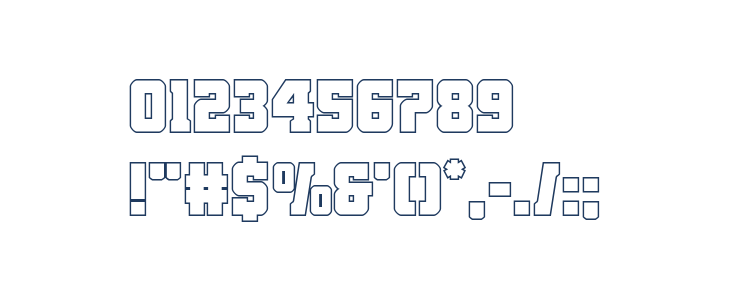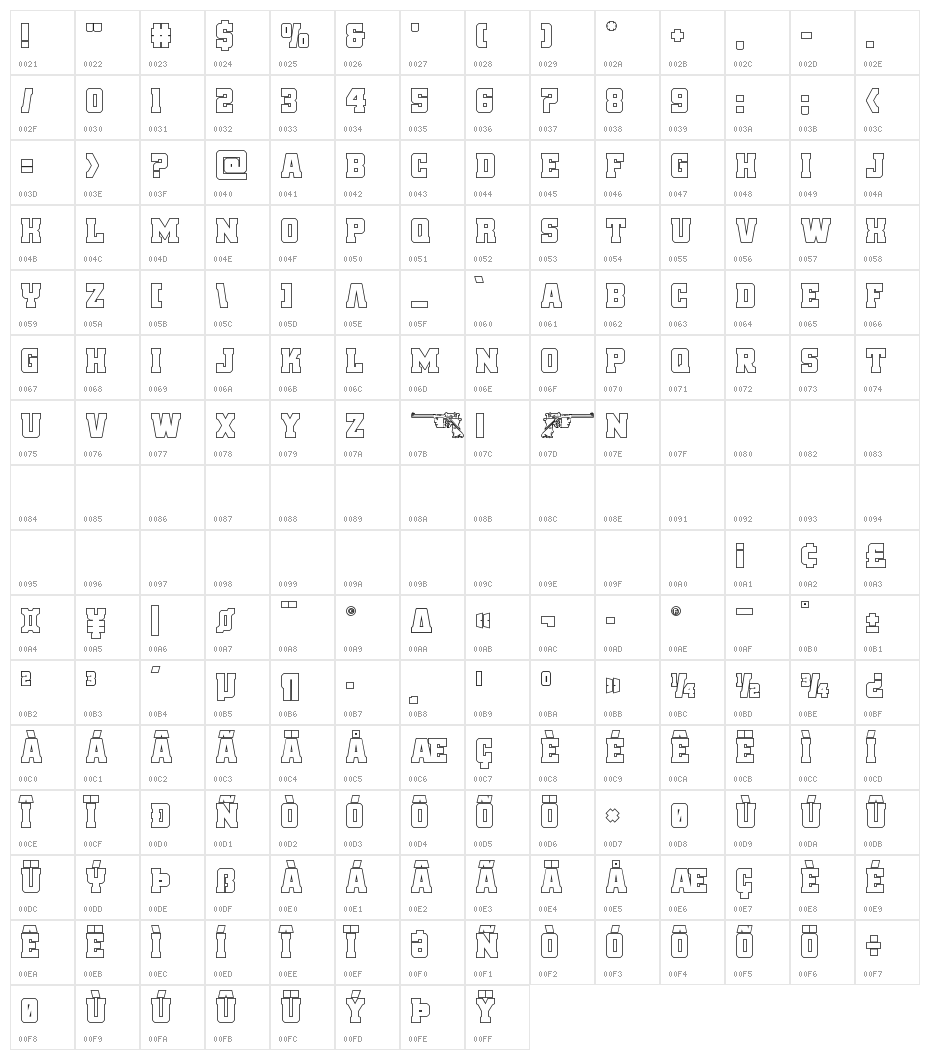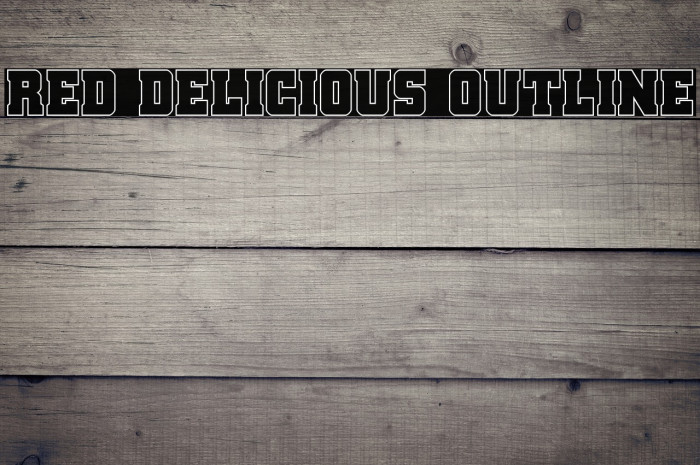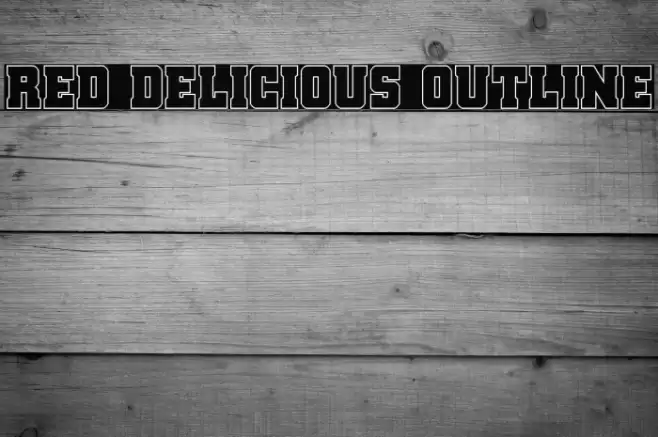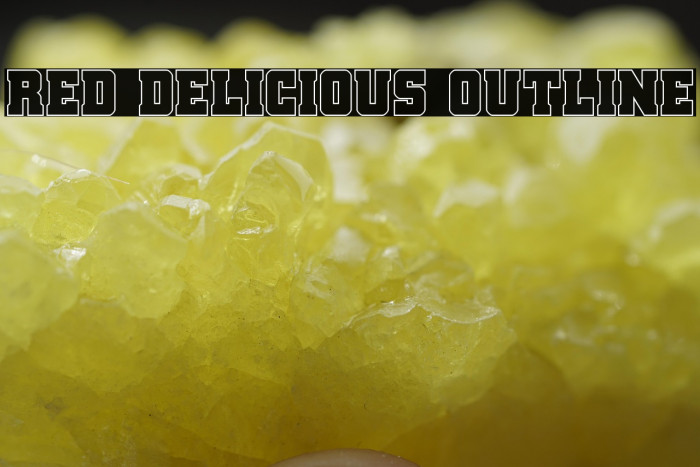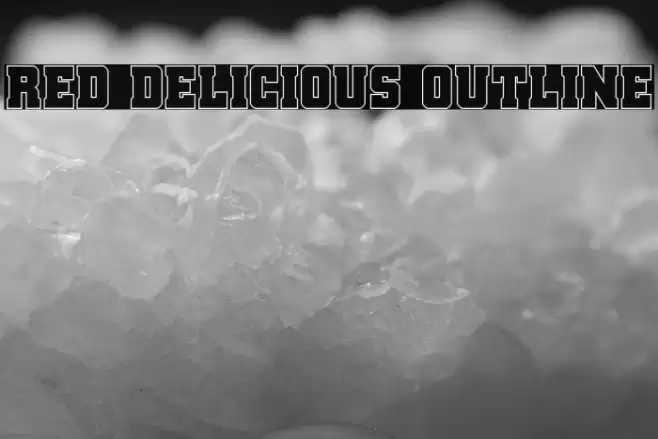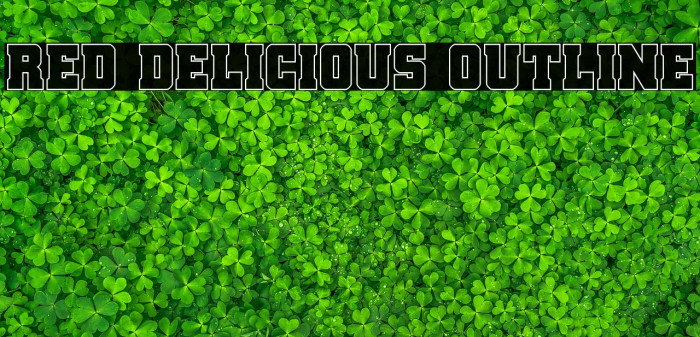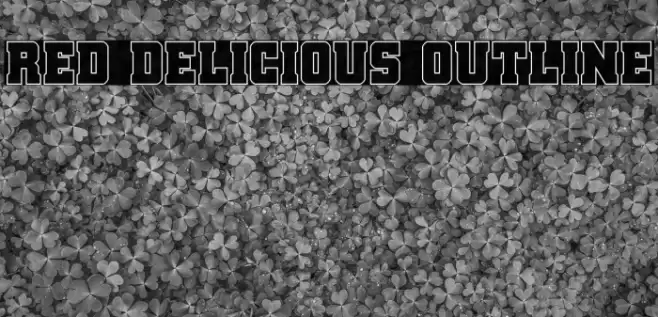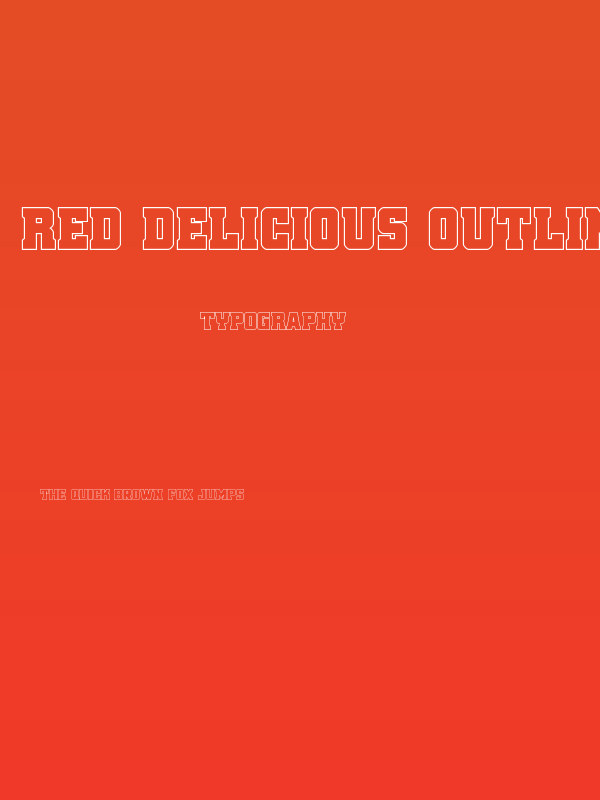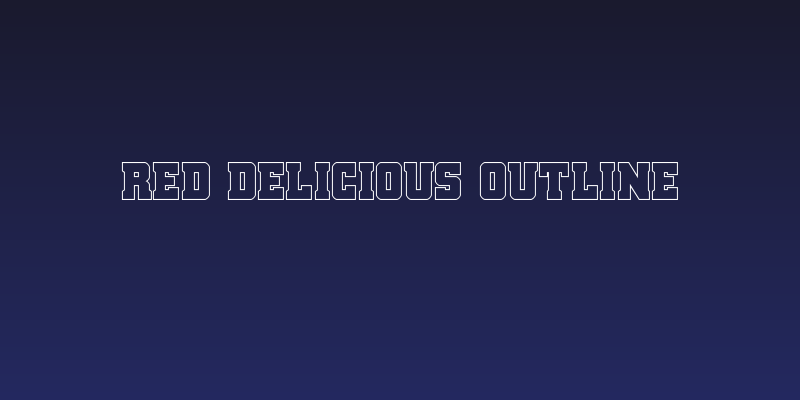
Red Delicious Outline Font
Red Delicious Outline Description
This font features a bold, outlined style with a strong presence. The characters are uppercase and have a blocky, geometric appearance, giving them a modern and impactful look. The outline adds a unique dimension, making the letters stand out without being filled. The numbers and special characters follow the same bold, outlined design, ensuring consistency across all elements. This font is ideal for projects that require a striking and memorable visual impact, such as posters, headlines, or branding materials. Its robust and structured form makes it suitable for conveying strength and stability.
Proposed ProjectsIdeal for posters, headlines, branding, and any project needing a strong visual impact.